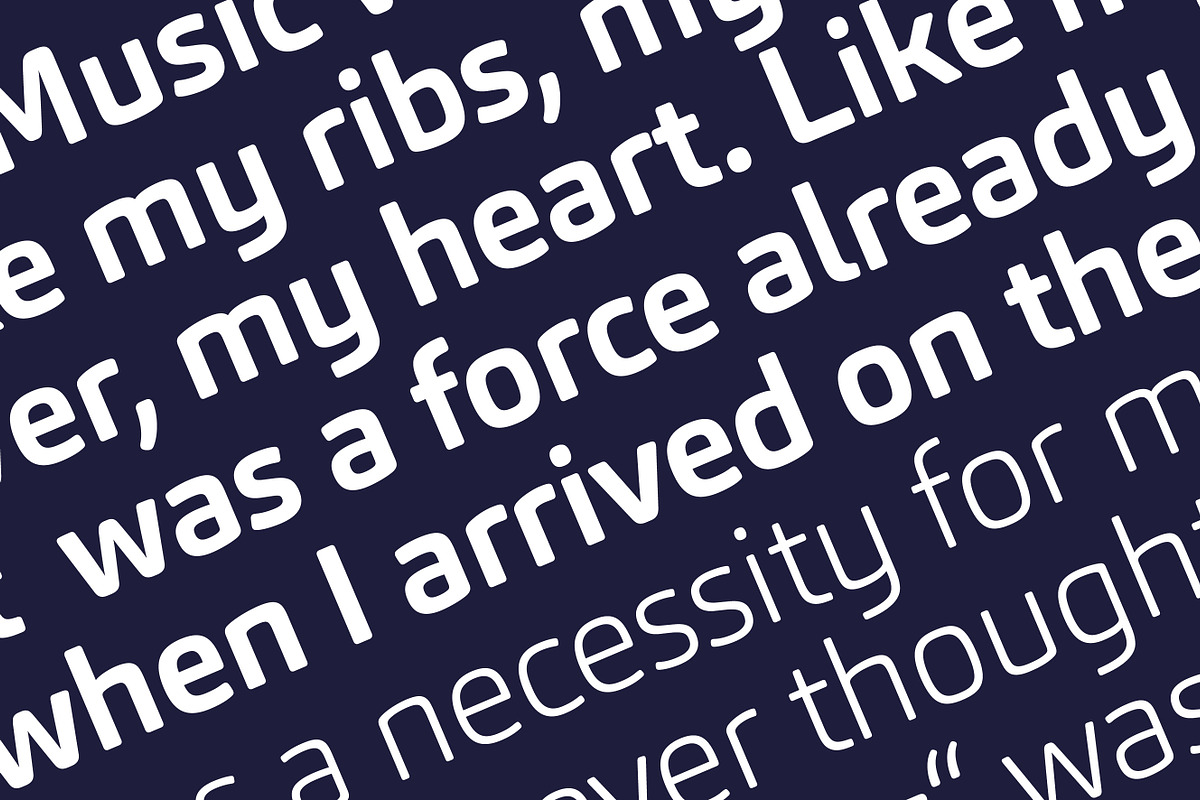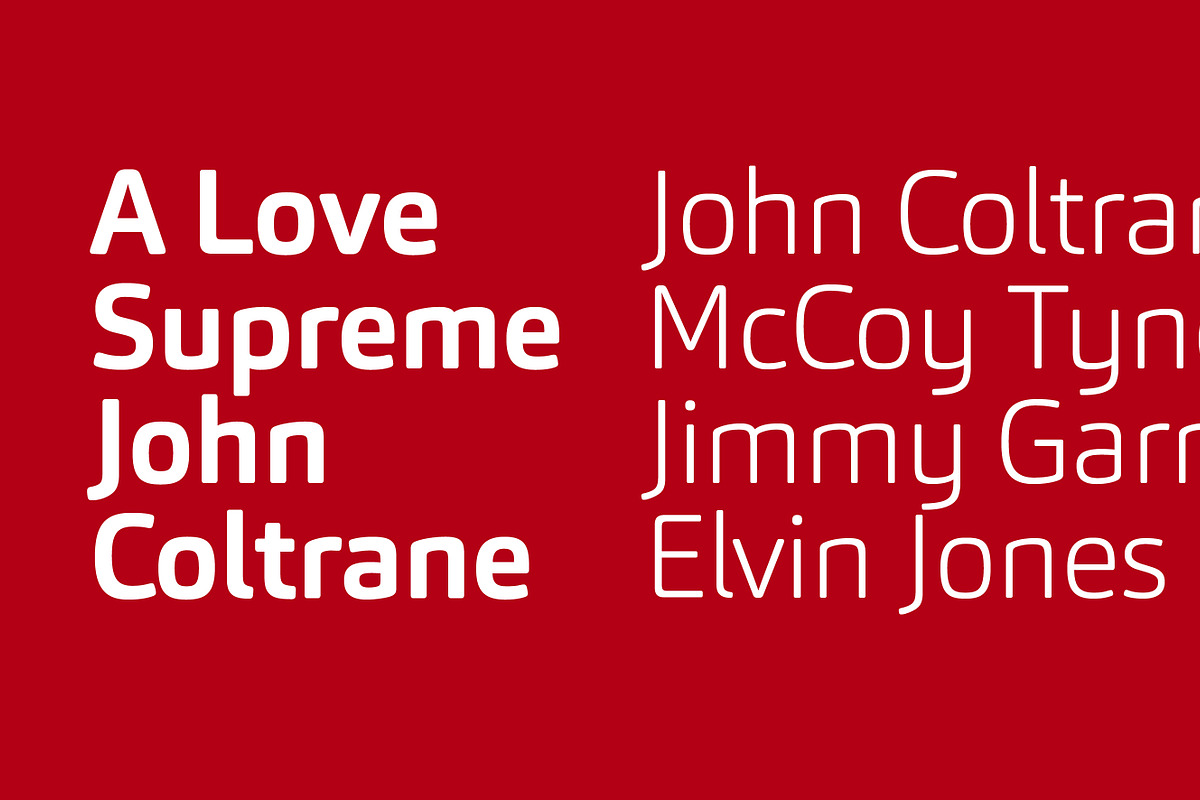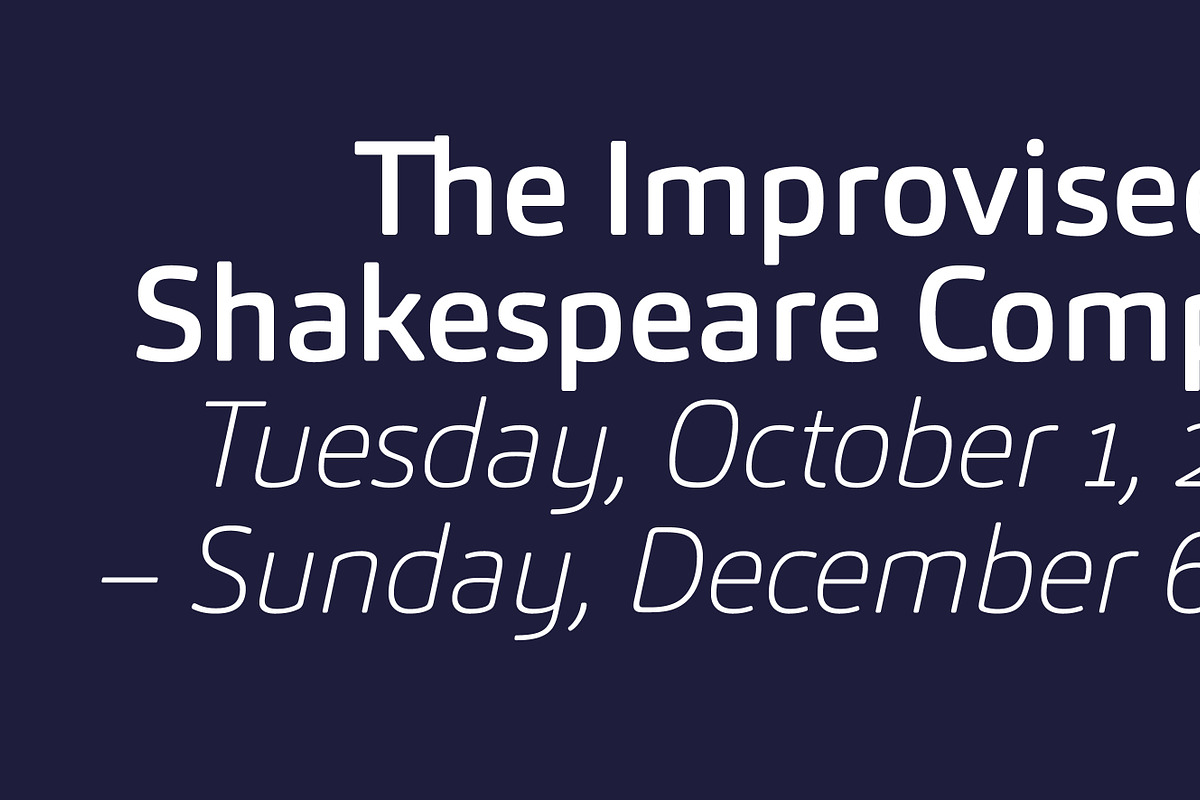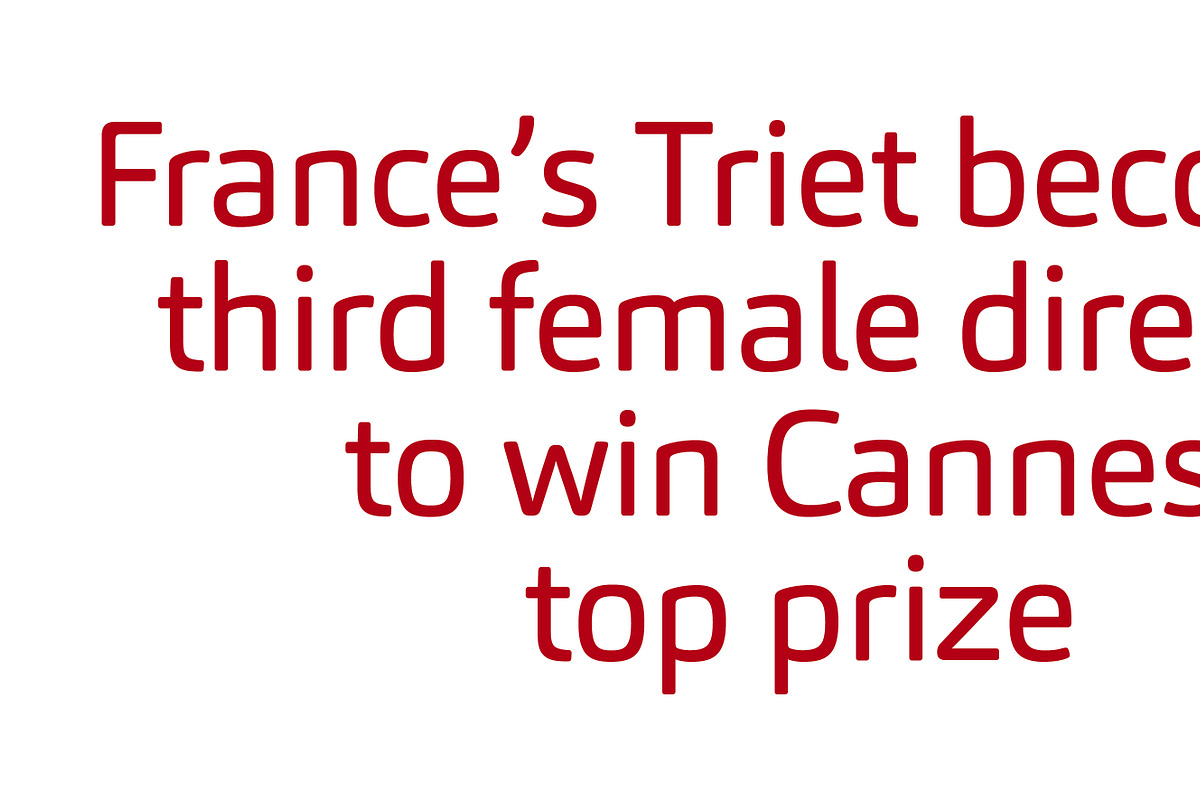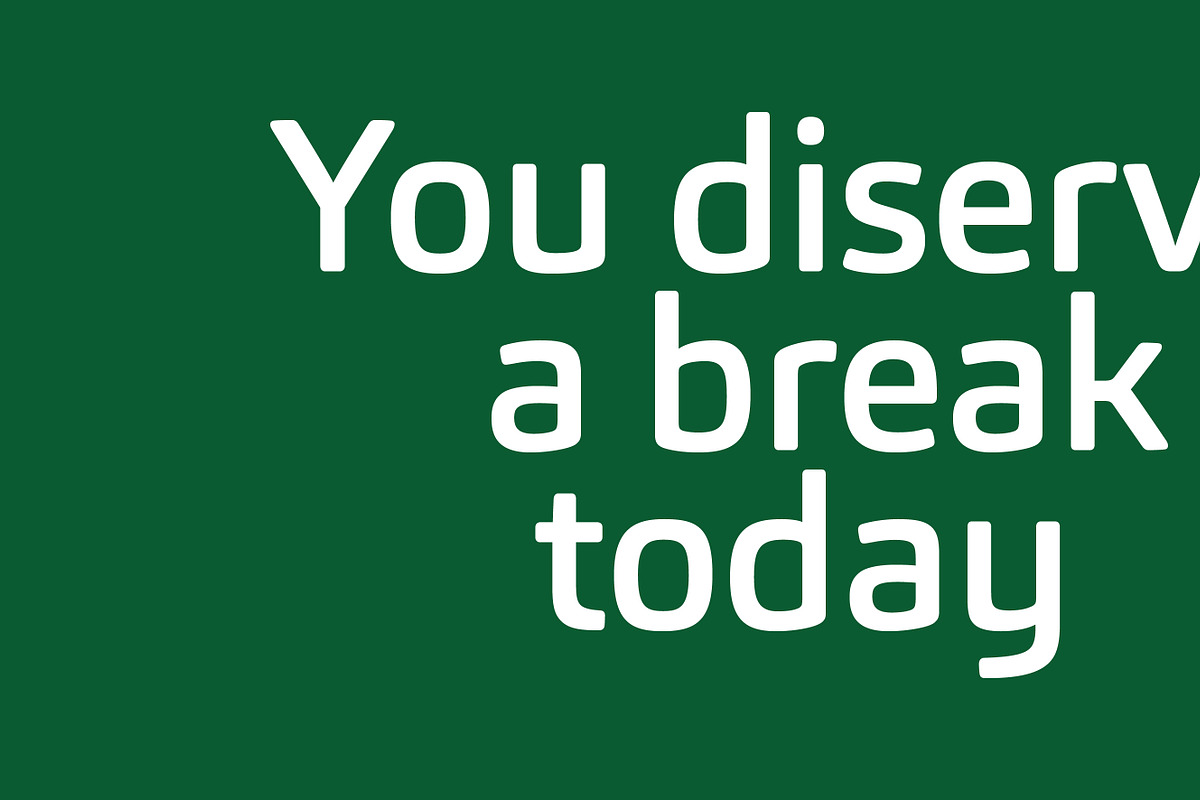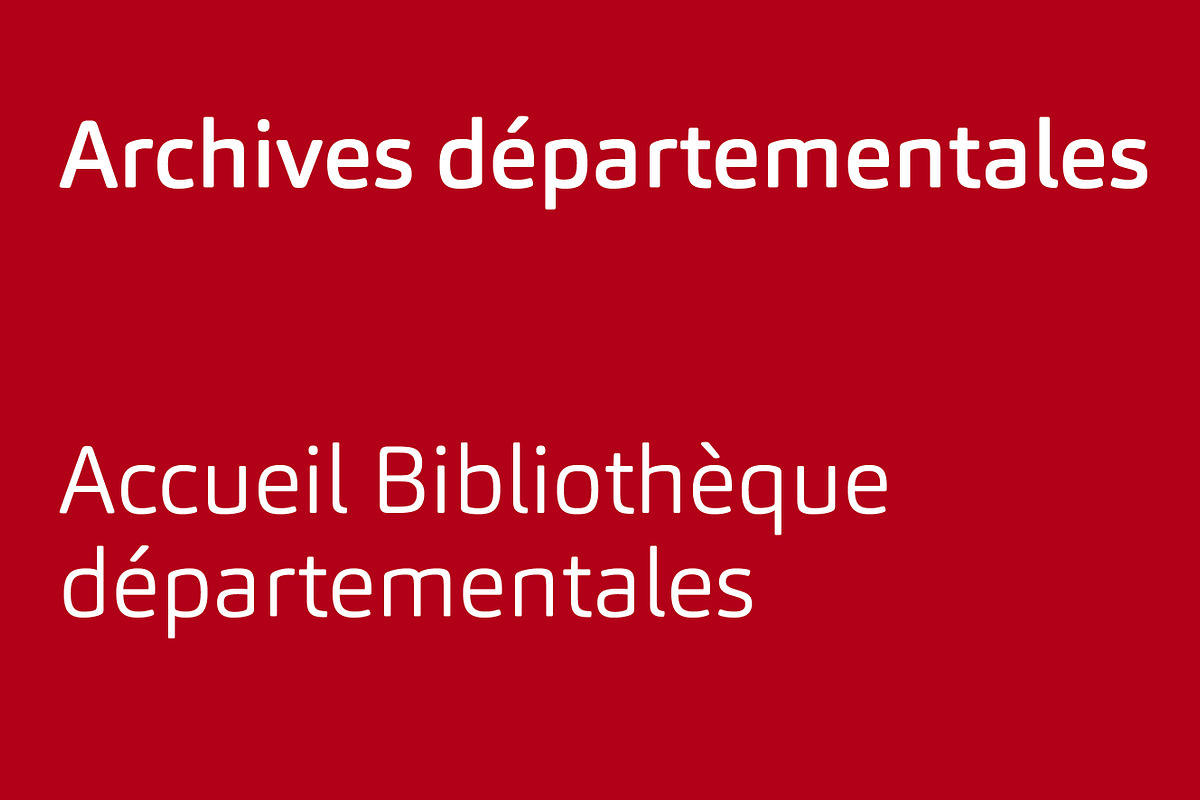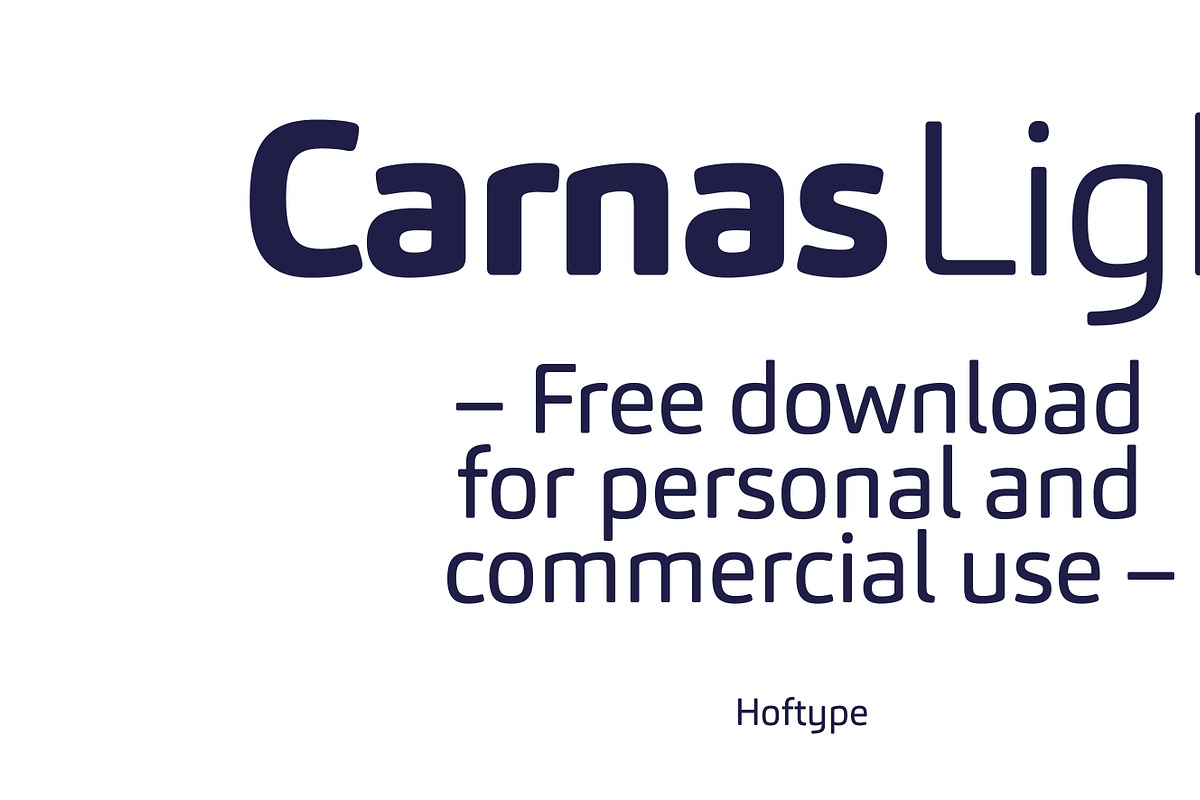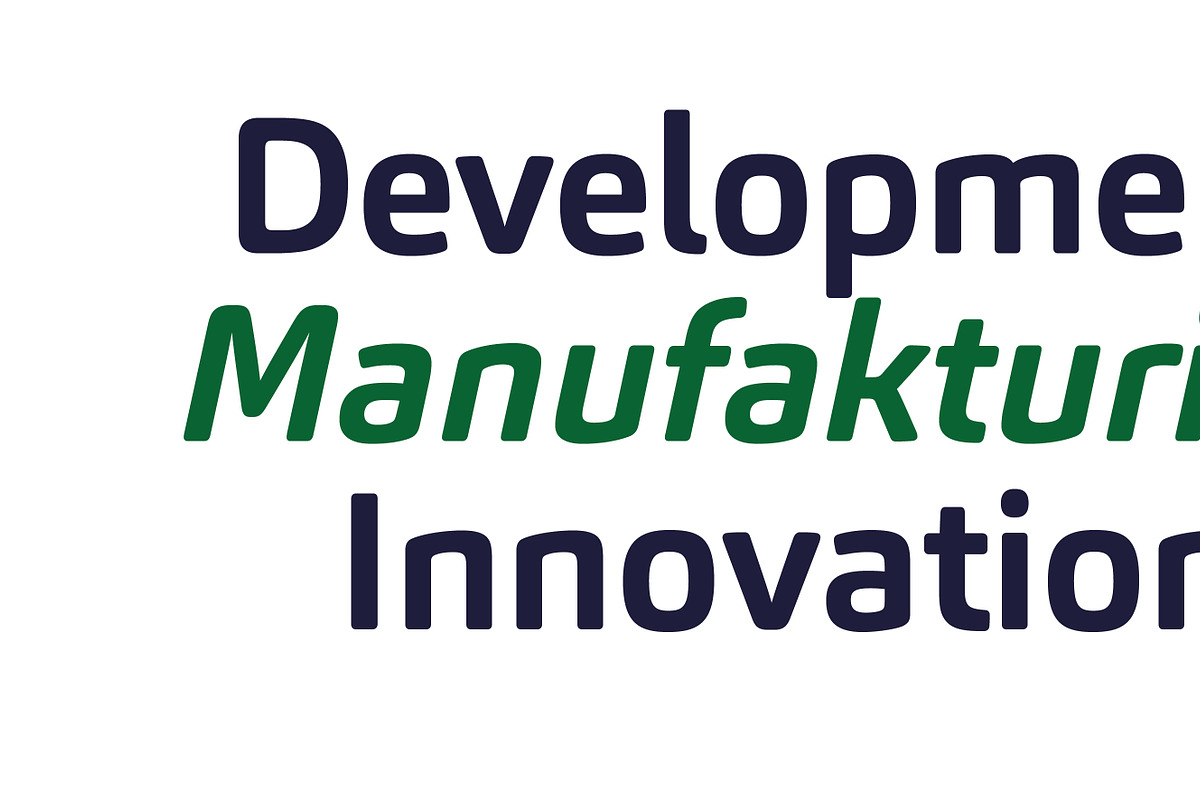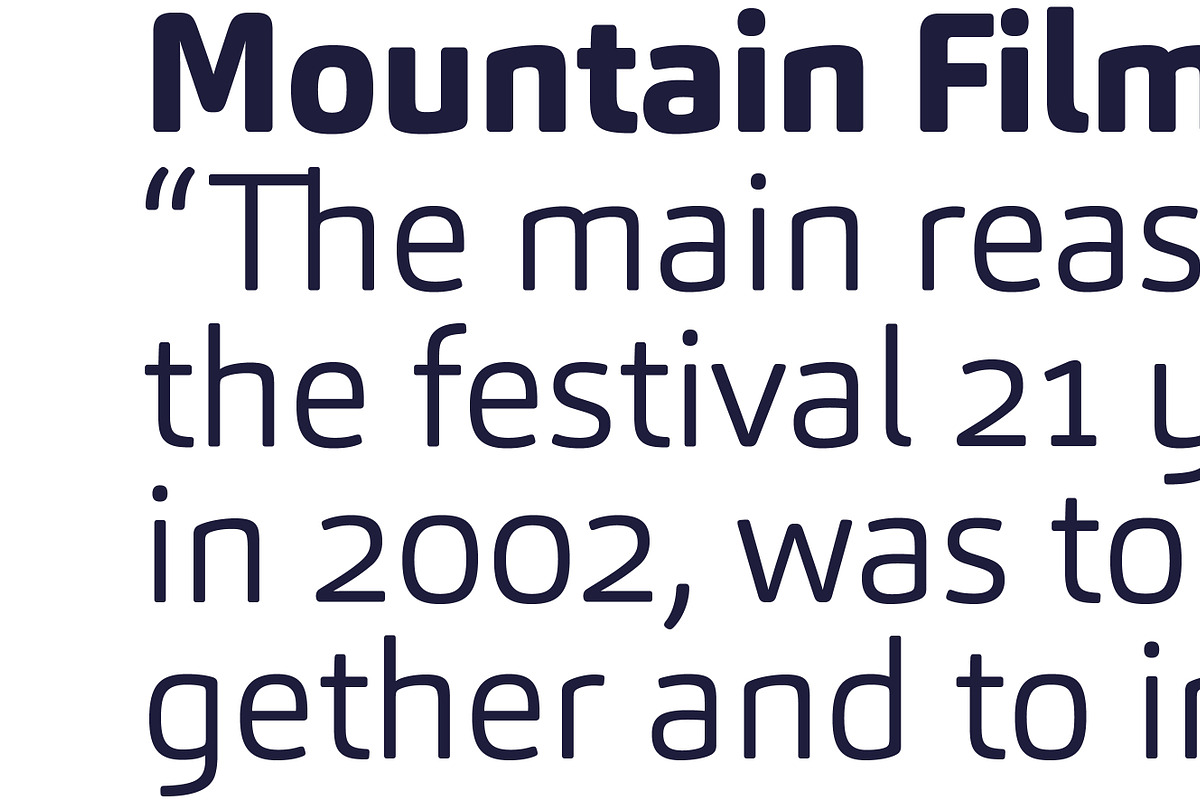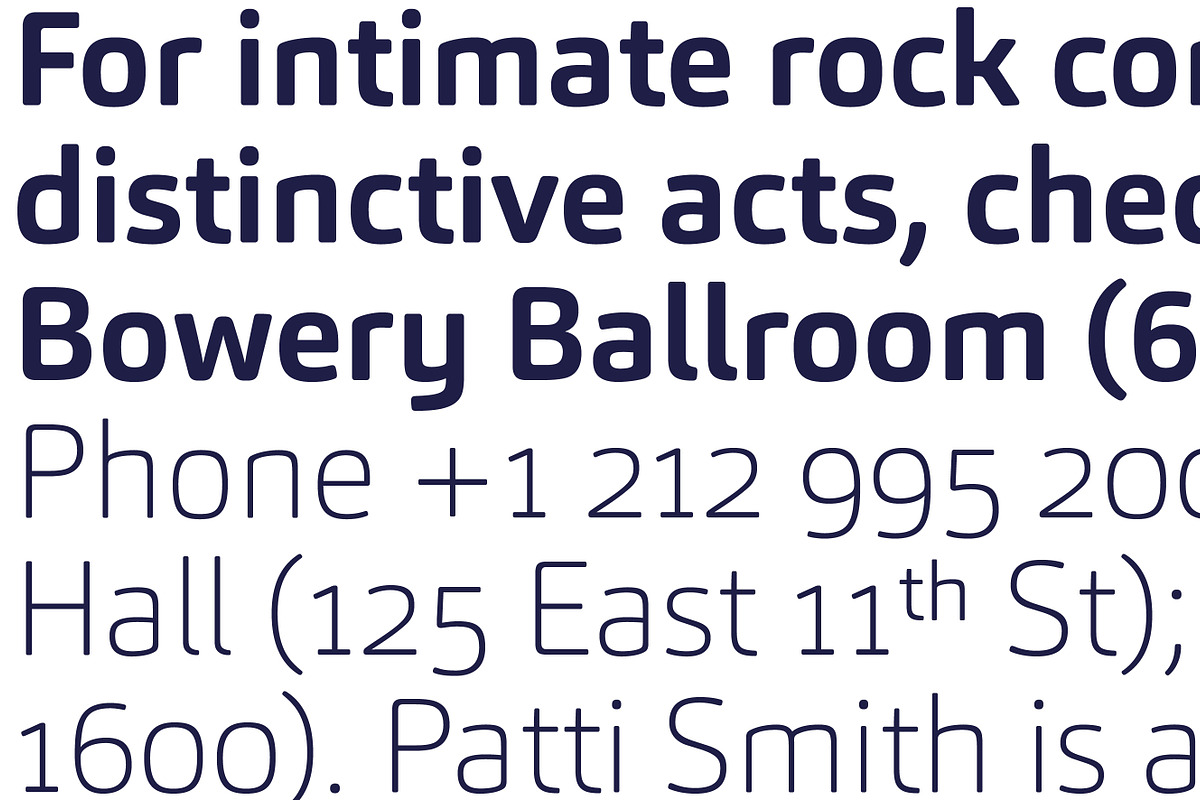
Carnas
Carnas is a neo-humanist sans serif font characterized by its light and slender appearance. Despite its thin strokes, it retains readability for both short and long text passages. The font family offers 16 styles, supporting a wide range of typographic needs. Carnas includes extensive OpenType features such as ligatures, various numeral styles, currency symbols, and arrows.